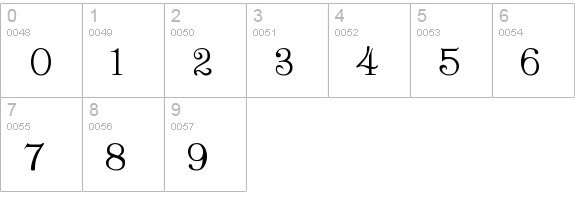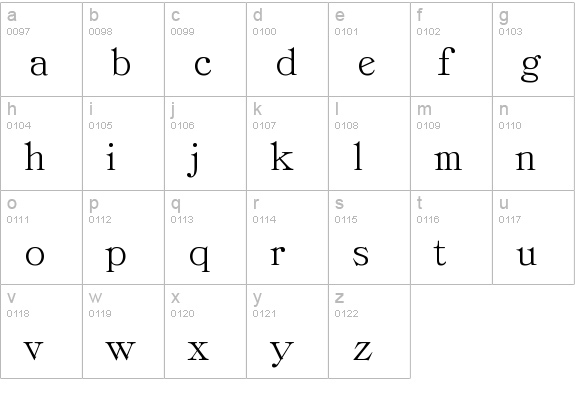
Classica-Roman Regular Font Details
Classica-Roman Regular is the standard, neutral variant in the Classica typeface family \xE2\x80\x94 well suited to general body text, paragraphs, and standard typographic work.
Classica-Roman Regular font is a classic and elegant typeface that exudes timeless sophistication. Its clean lines and traditional serifs make it perfect for a wide range of design projects, from formal invitations to branding materials. The balanced letterforms and generous spacing ensure excellent readability in both print and digital formats. What sets Classica-Roman Regular font apart is not just its aesthetic appeal, but also its versatility. Whether you're designing a wedding invitation or a corporate brochure, this font will add a touch of sophistication to your project. It pairs beautifully with both serif and sans-serif fonts, making it a versatile choice for any design. Best of all, Classica-Roman Regular font is available for free download at FontsMarket.com. This means you can start using it in your projects right away, without having to worry about licensing fees or restrictions. Don't miss out on this opportunity to elevate your designs with the timeless elegance of Classica-Roman Regular font.